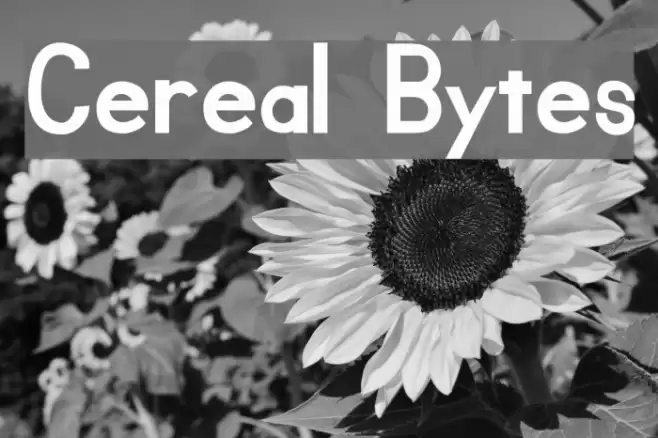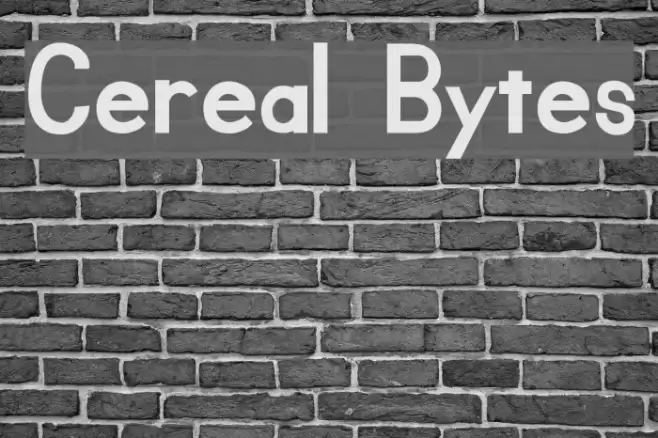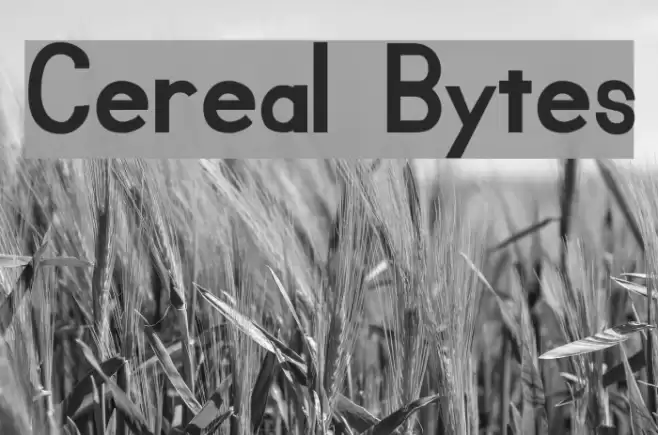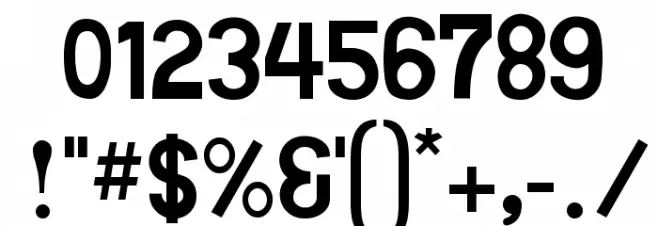
Cereal Bytes Font
Cereal Bytes Description
This font features a bold and modern sans-serif style with clean, geometric shapes. The uppercase letters are strong and assertive, while the lowercase letters maintain a consistent weight and structure, offering a harmonious balance. The numerals are clear and straightforward, ensuring legibility. Special characters are well-integrated, providing versatility for various design needs. The overall design is sleek and contemporary, making it suitable for a wide range of applications.
A bold, modern sans-serif font with geometric shapes and strong legibility from Uncategorized fonts.
- Proposed Projects: Ideal for branding, advertising, headlines, and digital interfaces where clarity and impact are essential.
- Use Case: Headlines, Logos, Digital Interfaces